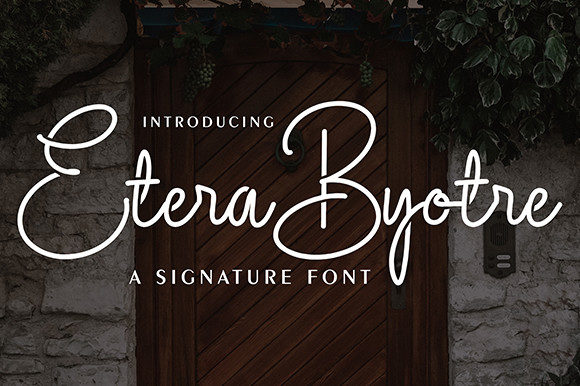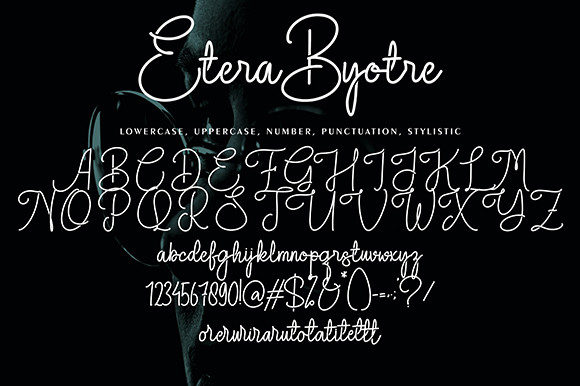
Etera Byotre Font
Etera Byotre is a stylish and delicate script font. It looks lovely on wedding invitations, thank you cards, quotes, greeting cards, logos, business cards and every other design which needs a customized touch.